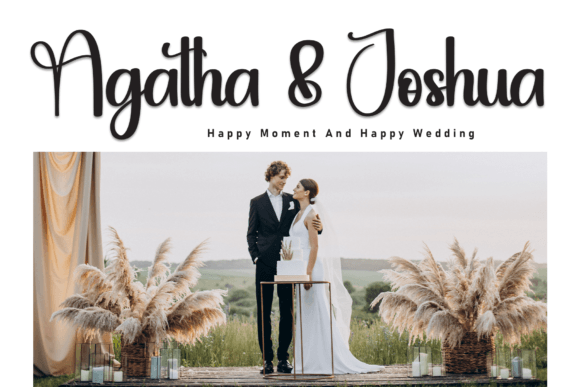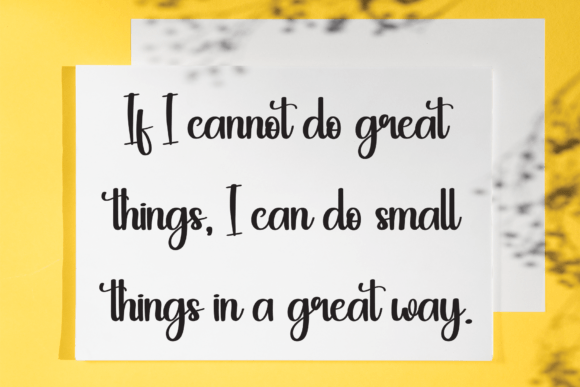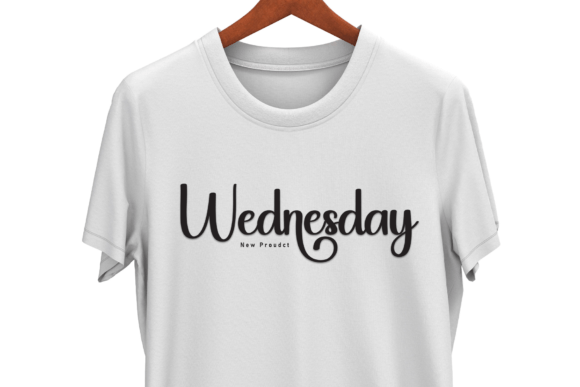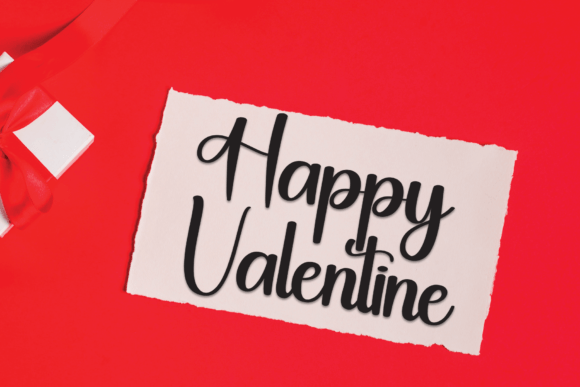
Snoopy Font
Snoopy is a stylish and incredibly elegant script font. It looks stunning on wedding invitations, thank you cards, quotes, greeting cards, logos, business cards and every other design which needs a handwritten touch.